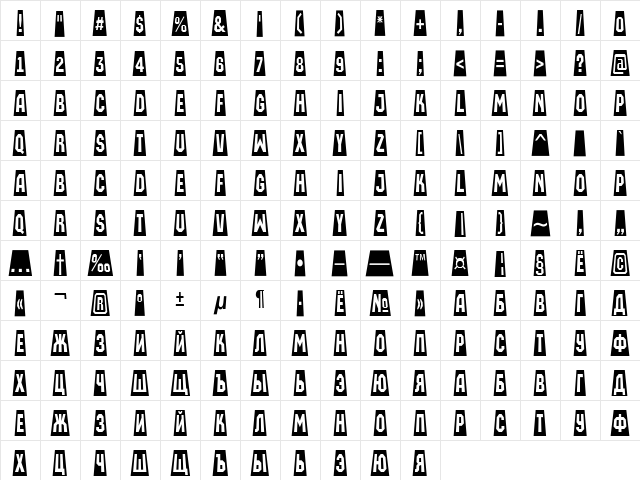
Complete a_MachinaOrtoCmSw Regular glyph index. Displaying only characters natively supported by a_MachinaOrtoCmSw Regular font.
a_MachinaOrtoCmSw is a composed and adaptable typeface that performs quietly and consistently across a wide range of design contexts.